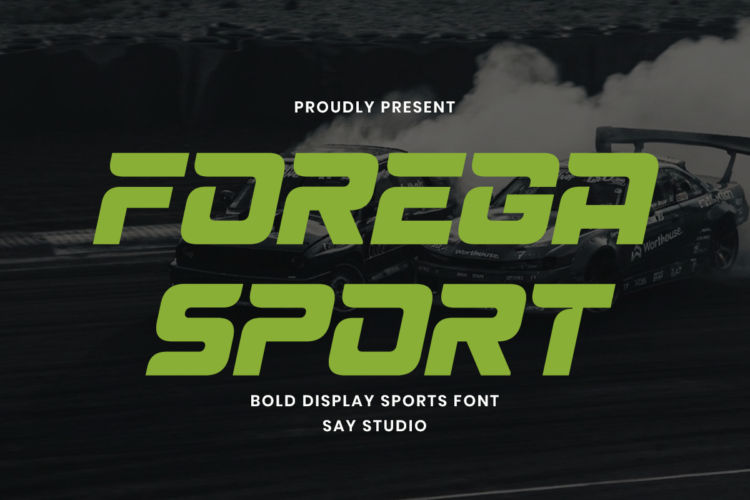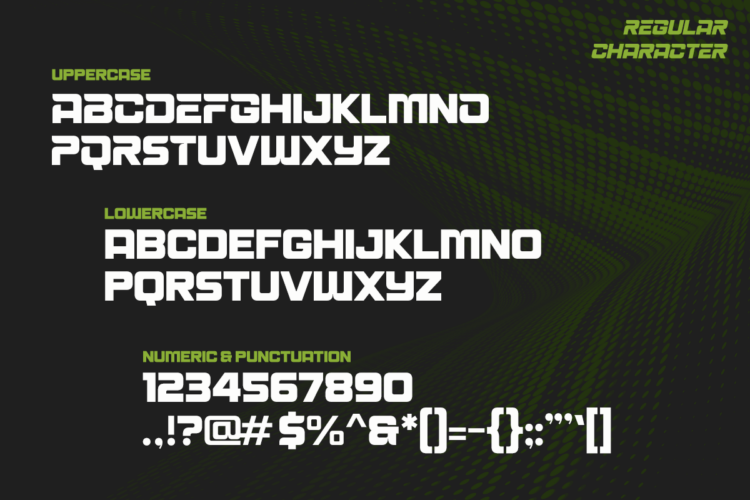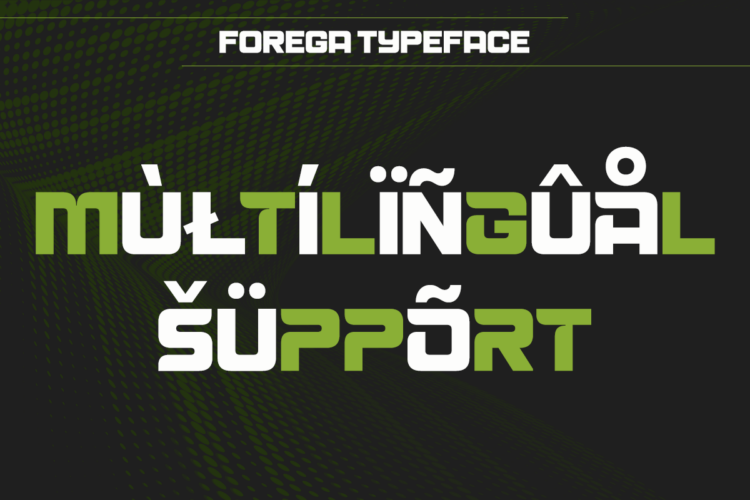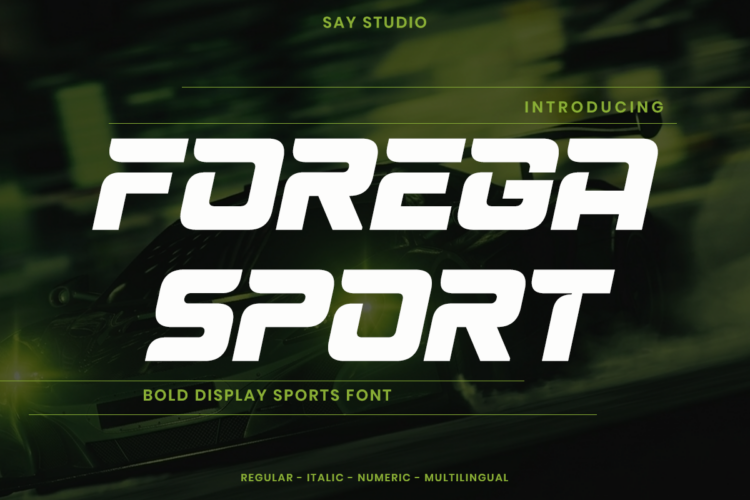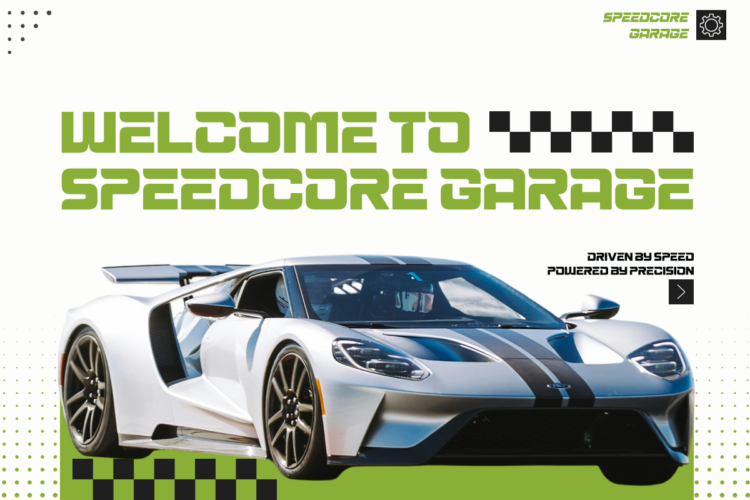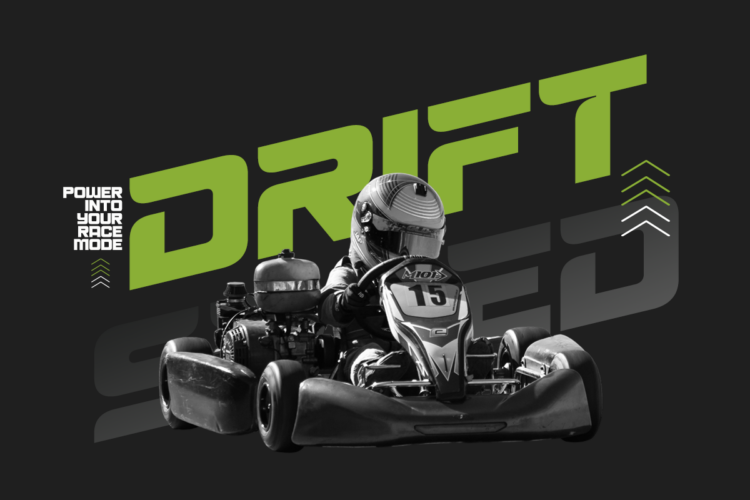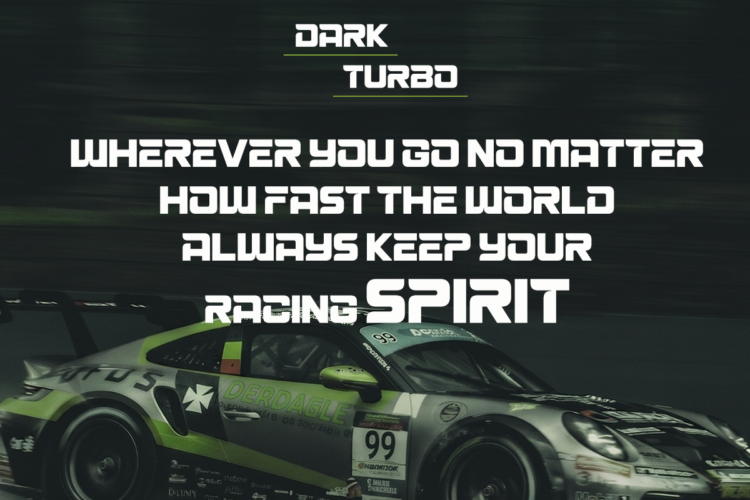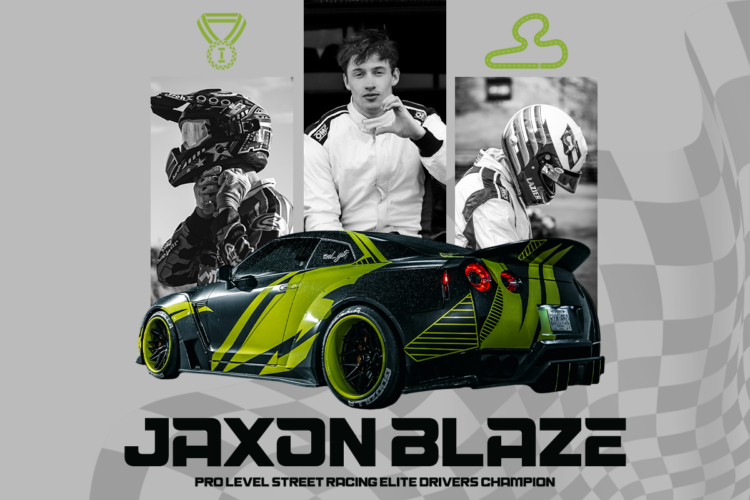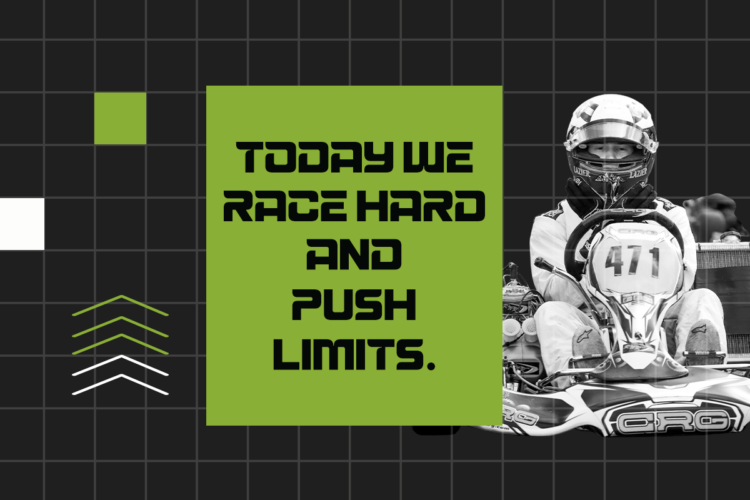
Forega Sport – A Bold Display
Forega Sport is a bold display sports font created specifically for athletic, racing, and competitive branding. Designed with aggressive shapes, aerodynamic cuts, and fast-moving futuristic styling, this typeface instantly communicates speed, power, energy, and performance—making it perfect for sports-focused visual projects.
Whether you’re designing for sports team branding, jersey typography, fitness campaigns, racing events, esports graphics, gym promotions, athletic apparel, sports posters, product packaging, or action-driven social media content, Forega Sport delivers a strong competitive look that grabs attention immediately.
Built for high-impact headlines and bold branding, Forega Sport works perfectly for logos, merchandise, tournament promotions, sports product advertising, and any design that needs a powerful athletic identity.
- Regular & Italic Style
- Uppercase & Lowercase
- Numbers & Punctuation